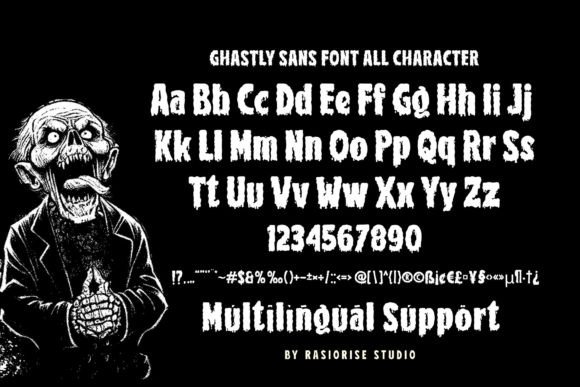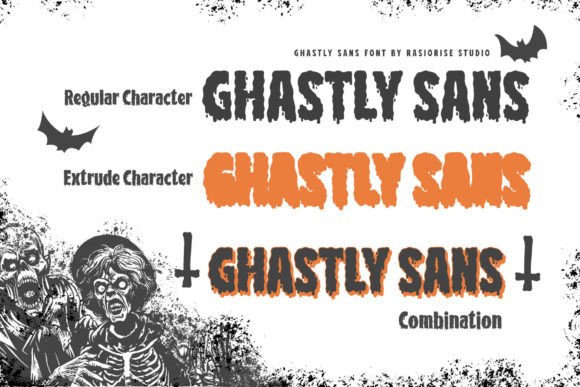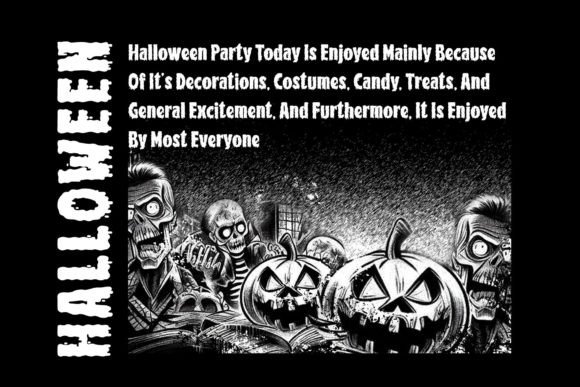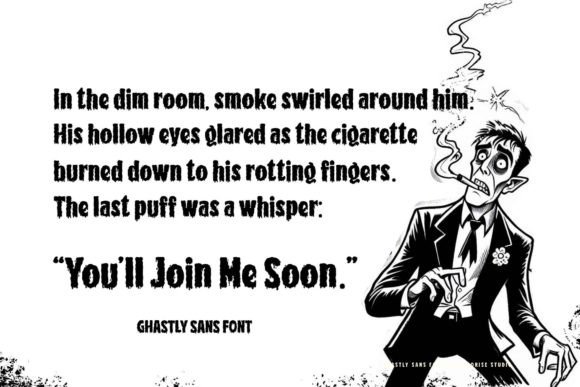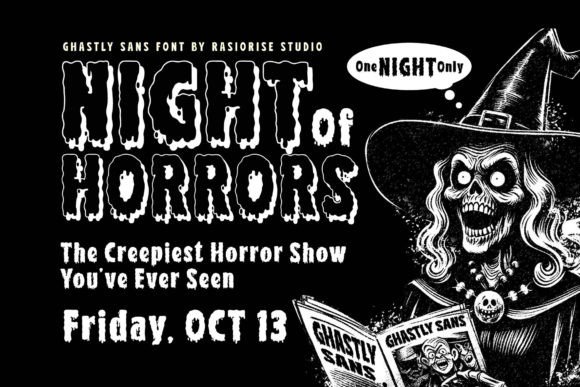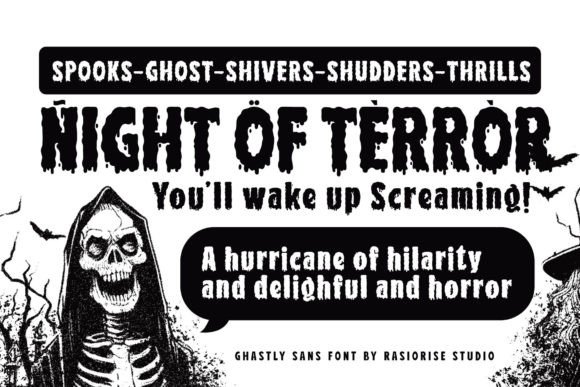
Ghastly Sans Font: Unleash Your Creativity this Halloween Season
Are you on the hunt for a font that will add a touch of horror and creepiness to your designs? Look no further than Ghastly Sans Font, the perfect addition to your Halloween-themed projects. This sans serif font is inspired by comic and headline styles, with a unique twist – it’s been crafted with hand drawings that drip with a freestyle flair, combined to create a truly terrifying typeface.
The Inspiration Behind Ghastly Sans
Ghastly Sans Font draws its inspiration from the world of comics and headlines, where bold and eye-catching typography is key. The font’s creator has taken these classic styles and turned them on their head, adding a dash of horror and whimsy to create a truly one-of-a-kind font. The result is a typeface that’s equal parts spooky and stylish, perfect for designers and crafters looking to add a little excitement to their work.
Perfect for Halloween and Horror-Themed Projects
Ghastly Sans Font is the perfect choice for any Halloween or horror-themed project. Whether you’re designing invitations for a spooky party, creating a creepy book cover, or crafting a haunted house logo, this font has got you covered. Its bold and eye-catching style is sure to grab attention and send shivers down the spines of your audience.
So what can you create with Ghastly Sans Font? The possibilities are endless! Here are just a few ideas to get you started:
- Logotype: Create a memorable and terrifying logo for your business or brand.
- Book covers: Add a touch of horror to your book cover designs with Ghastly Sans.
- Halloween party invitations: Invite your friends and family to a spooky celebration with Ghastly Sans.
- Gift cards: Create creepy and unique gift cards for the horror fans in your life.
- Greeting cards: Send a spooky greeting with Ghastly Sans.
- Posters: Create eye-catching posters for horror movies, haunted houses, or spooky events.
- Merchandise: Add a touch of horror to your merchandise designs, from t-shirts to mugs.
- Packaging Label: Create creepy and eye-catching labels for your products.
- Badge/Emblem Logo: Design a terrifying logo for your business or organization.
Why Choose Ghastly Sans Font?
So why choose Ghastly Sans Font for your Halloween and horror-themed projects? Here are just a few reasons:
- Unique and eye-catching style: Ghastly Sans Font is unlike any other font out there, with its bold and creepy style sure to grab attention.
- Versatile: This font can be used for a wide range of projects, from logos and book covers to posters and merchandise.
- High-quality: This font is crafted with high-quality design and materials, ensuring a professional finish for your projects.
If you’re looking for a font that will add a touch of horror and creepiness to your designs, look no further than Ghastly Sans Font. With its unique and eye-catching style, versatility, and ease of use, this font is perfect for designers and crafters looking to create spooky and stylish projects. So why wait? Unleash your creativity this Halloween season with Ghastly Sans Font.